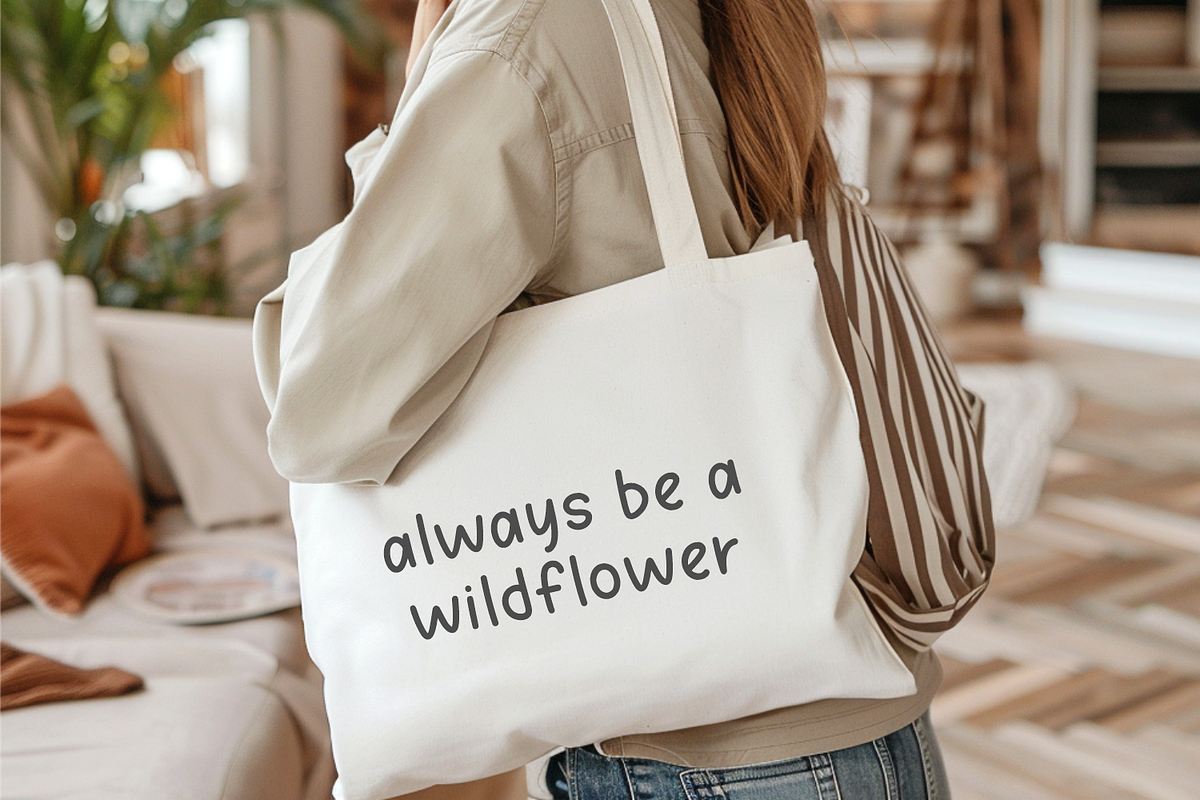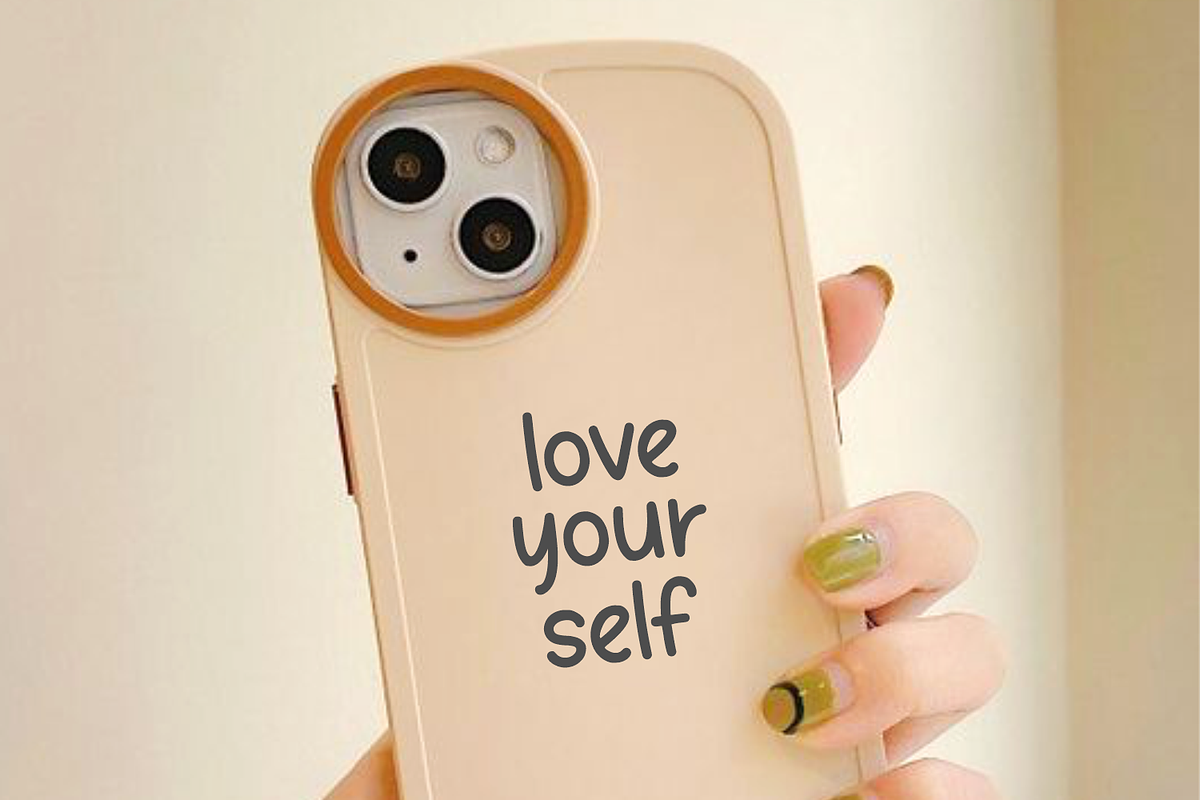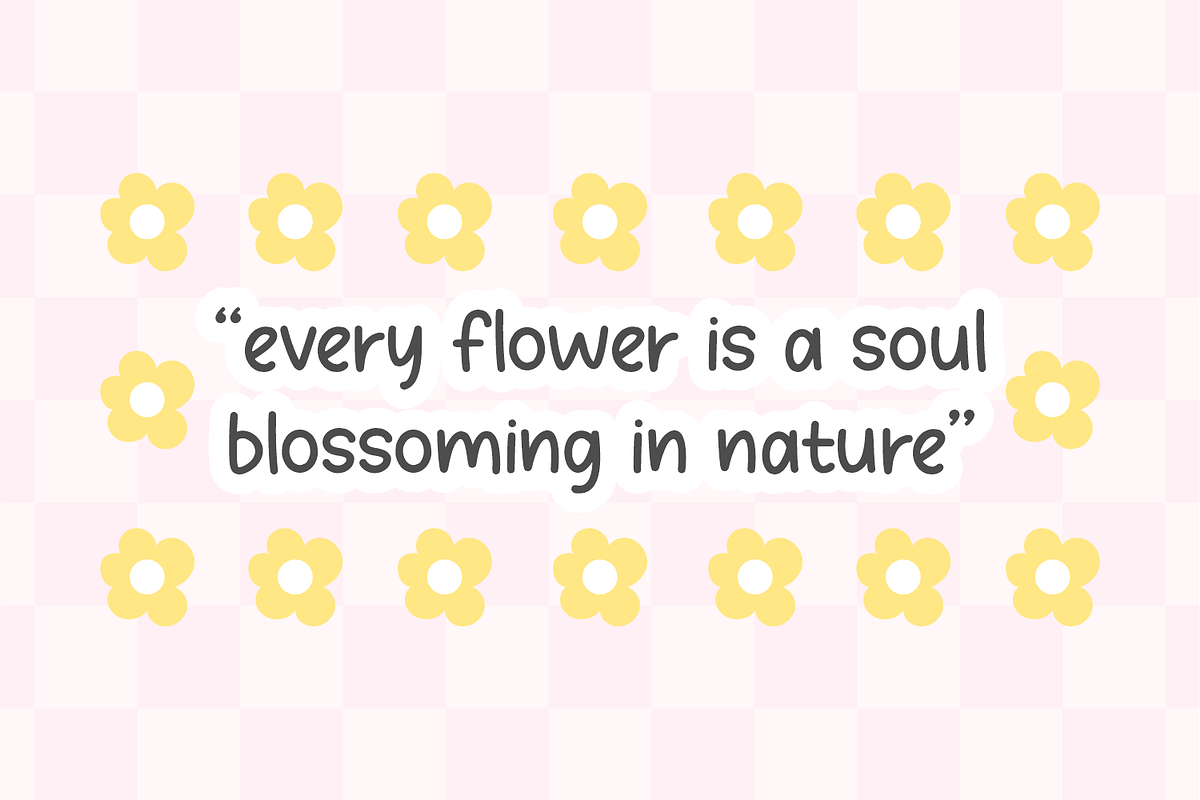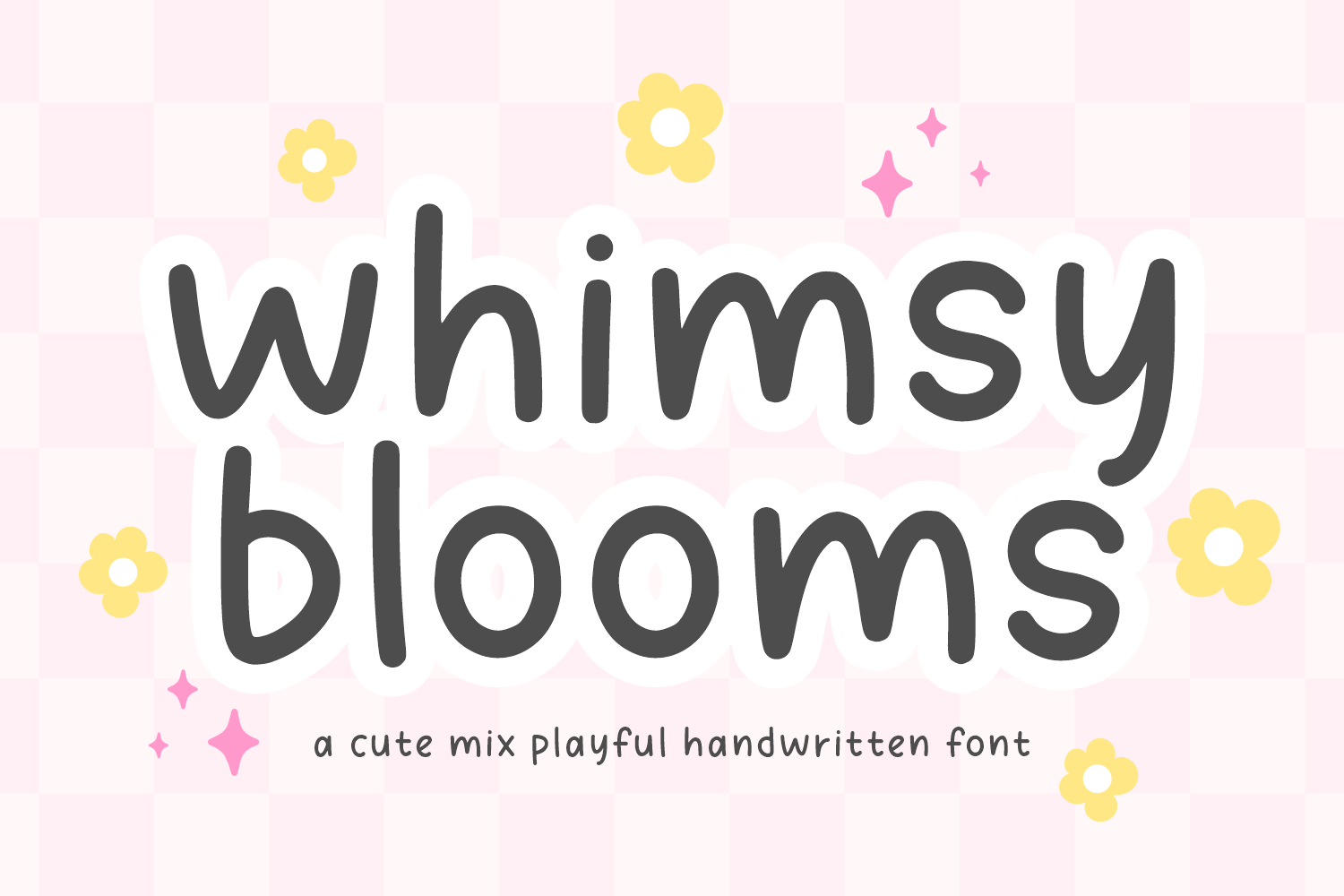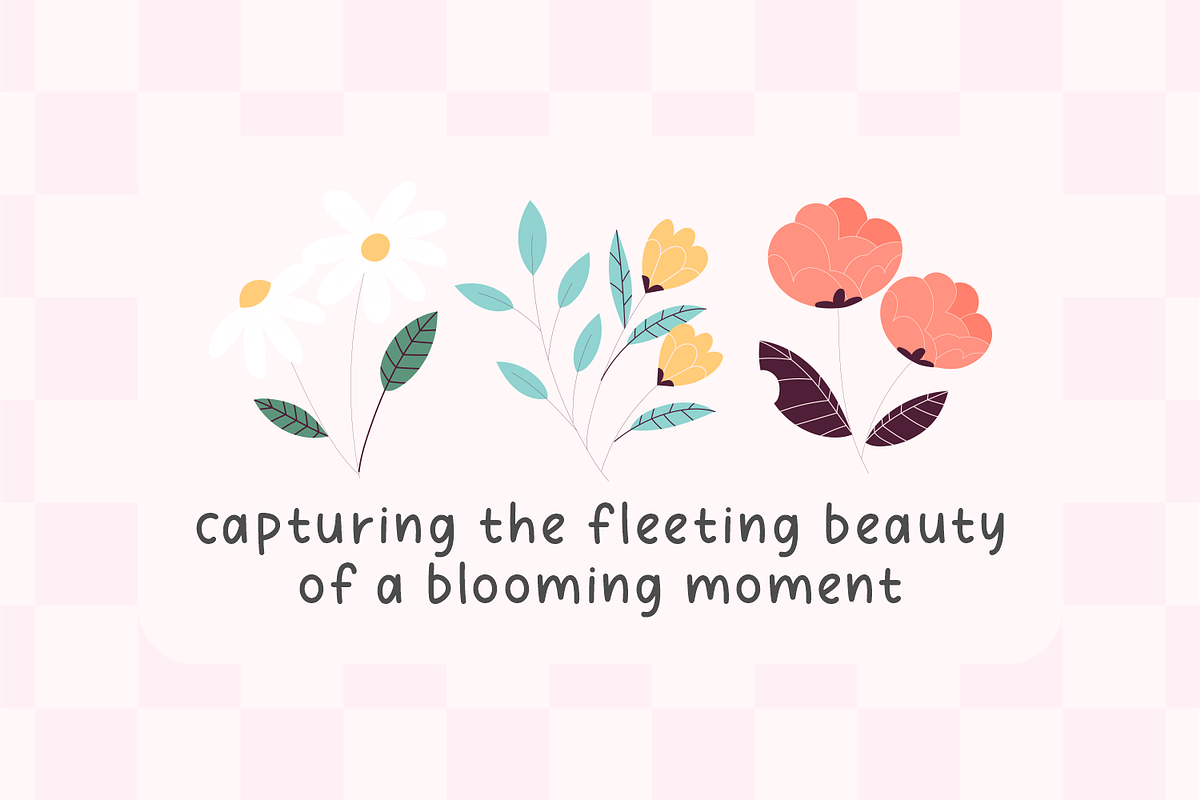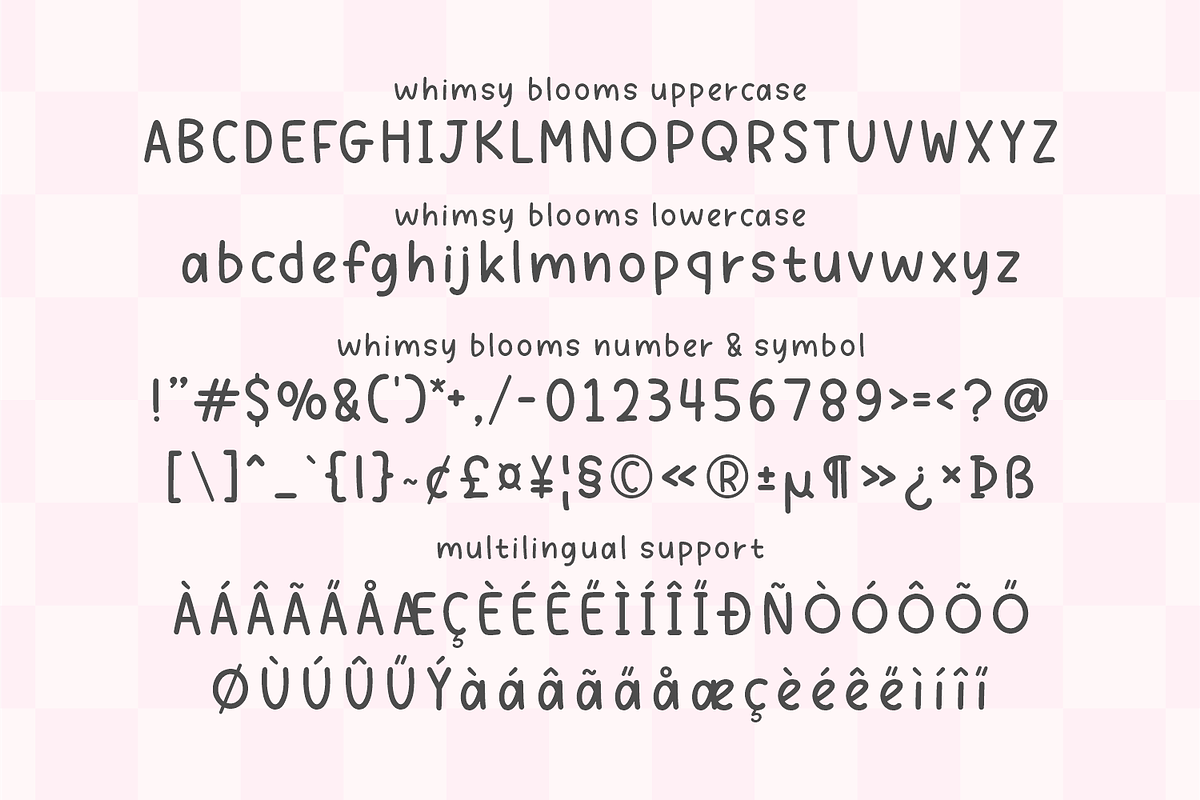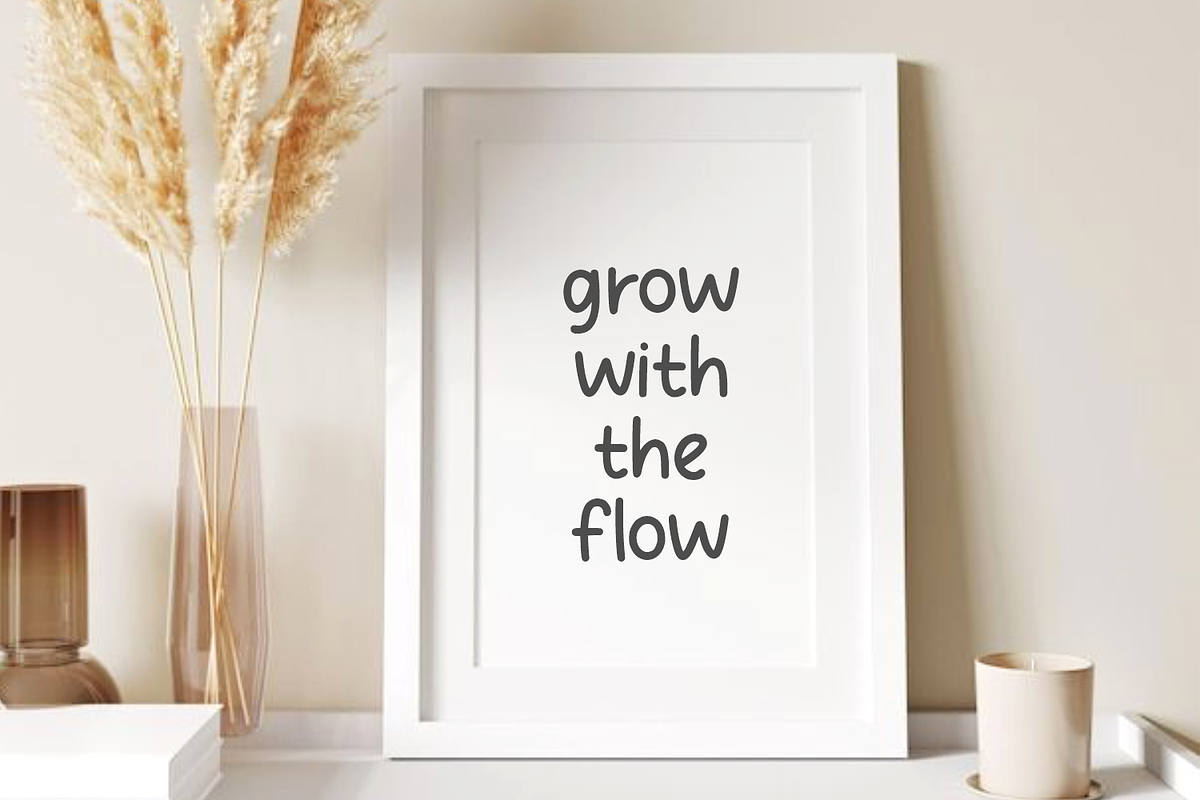
Whimsy Blooms - Playful Font
Whimsy Blooms is a delightfully charming handwritten font, exuding an aura of bliss and merriment. It’s characterized by lively strokes and fanciful curves, invoking those joyful sensations of collecting wildflowers under the sun’s gentle glow. Ideal for infusing an enthusiastic spark into a multitude of designs including tote bags, phone cases, greeting cards, and posters, Whimsy Blooms is also resultantly suited to brighten children’s books. Its inherent warmth and happiness promise to breathe life into your creative exertions.